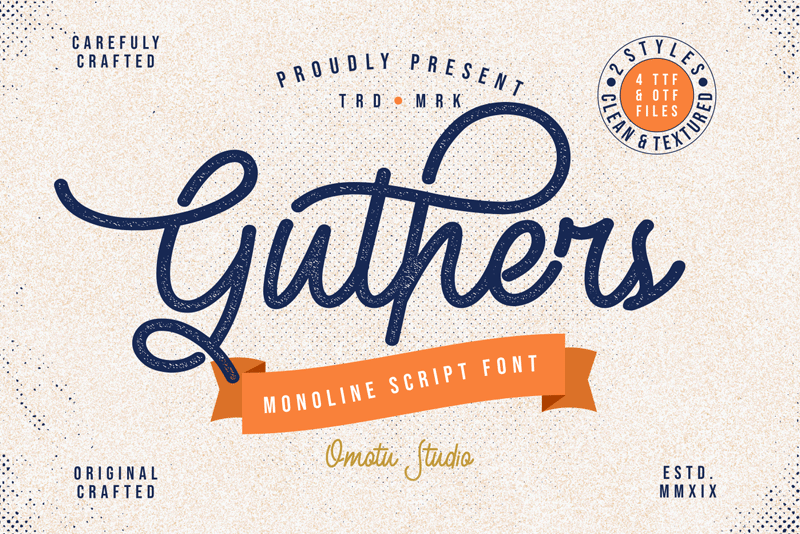
DETAILS� Introducing, Guthers, monoline script font. Perfect for logotype, headline, apparels, quotes, posters, labels with vintage and exclusive feels. WHATS INCLUDE?� 1. Uppercase and lowercase characters� 2. Supports international languages� 3. Features: Uppercase, Lowercase, numeral & punctuation, multilanguage, stylistic alternates, and ligatures� 4. Accessible in the Adobe Illustrator Glyphs panel, or under Stylistic Alternates in the Adobe Photoshop OpenType menu, Adobe InDesign, Corel Draw, even work on Microsoft Word.� 5. TTF and OTF files PUA Encoded Characters - Fully accessible without additional design software. Thanks for looking, and I hope you enjoy it! Please don't hesitate to drop me a message if you have any issues or queries. https://fontbundles.net/omotu/250611-guthers-monoline-script-font Full version and commercial license Best Regards,� ~ Omotu ~� ibnu.blawong2@gmail.com |